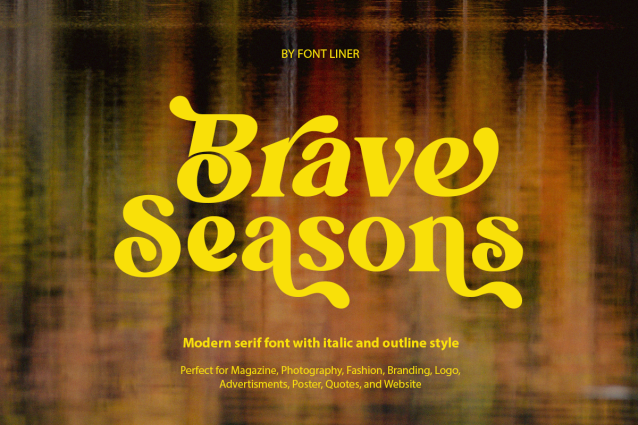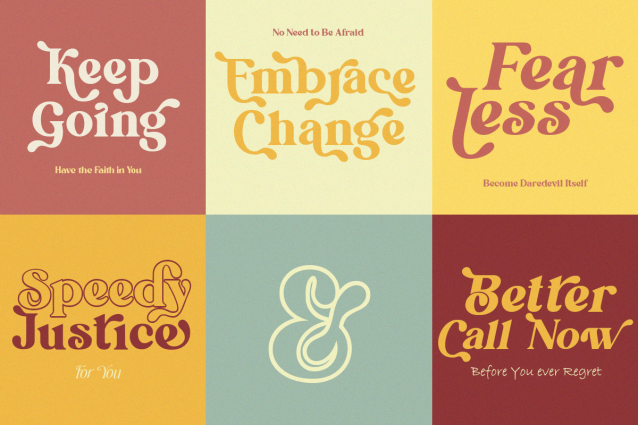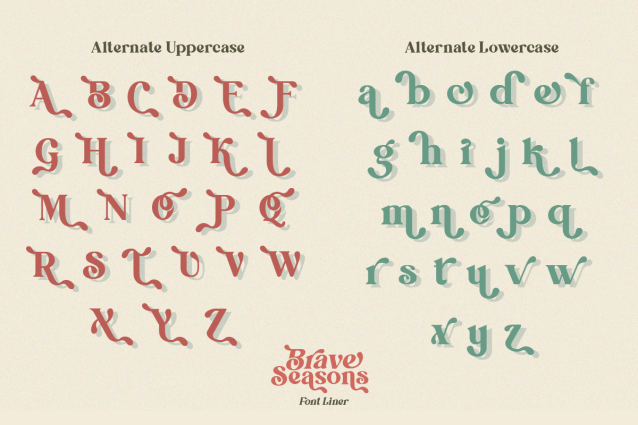
Brave Seasons is a charming vintage serif font that blends nostalgic elegance with playful personality. Featuring soft retro curves, expressive decorative details, and beautifully crafted alternate characters, Brave Seasons creates warm, memorable typography that feels both timeless and contemporary. Its handcrafted character makes it ideal for designers seeking a distinctive serif with classic charm and modern versatility.
Perfect for branding, logos, wedding stationery, cafés, boutique packaging, editorial layouts, book covers, invitations, greeting cards, beauty products, artisan brands, restaurants, lifestyle magazines, social media, merchandise, posters, and premium marketing materials, Brave Seasons includes uppercase, lowercase, numerals, punctuation, multilingual support, stylistic alternates, and decorative glyphs to unlock endless creative possibilities.
Whether you’re designing a cozy café identity, luxury boutique branding, vintage packaging, wedding invitations, travel editorials, or handcrafted product labels, Brave Seasons delivers warmth, sophistication, and expressive beauty in every composition. Its elegant vintage aesthetic makes it an excellent display serif for both print and digital projects that demand timeless character.